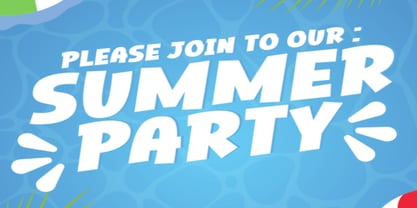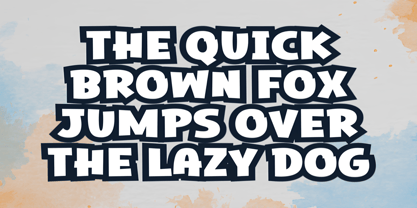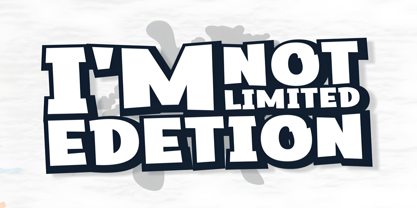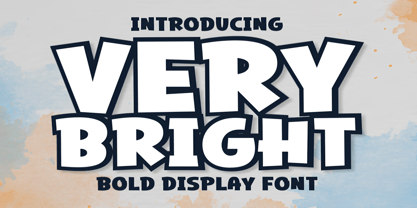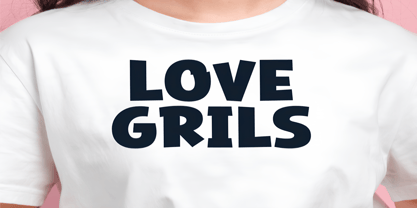
Very Bright
by Jena Fonts
The Very Bright Font Family was designed by Tarik Zahir and published by Jena Fonts. Very Bright contains 1 styles. More about this family
Add fun and creativity with the Very Bright Font, a playful display font perfect for kids’ projects, holidays, parties, and cheerful designs. Instantly download and start creating joyful, imaginative projects. ✅ Perfect for: ➡️ Kids’ projects & school materials ➡️ Holiday & festive designs ➡️ Party invitations & greeting cards ➡️ Craft projects & posters ➡️ Fun, cheerful, creative designs
Designers: Tarik Zahir
Foundry: Jena Fonts